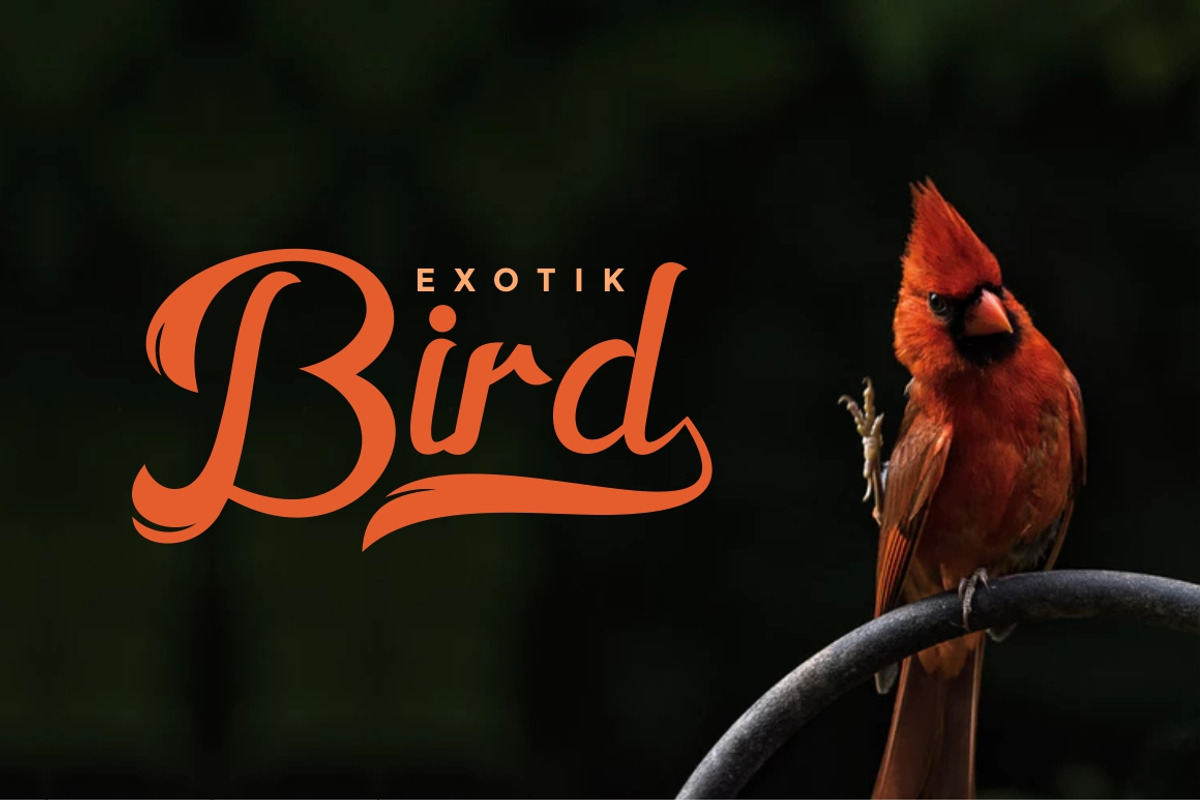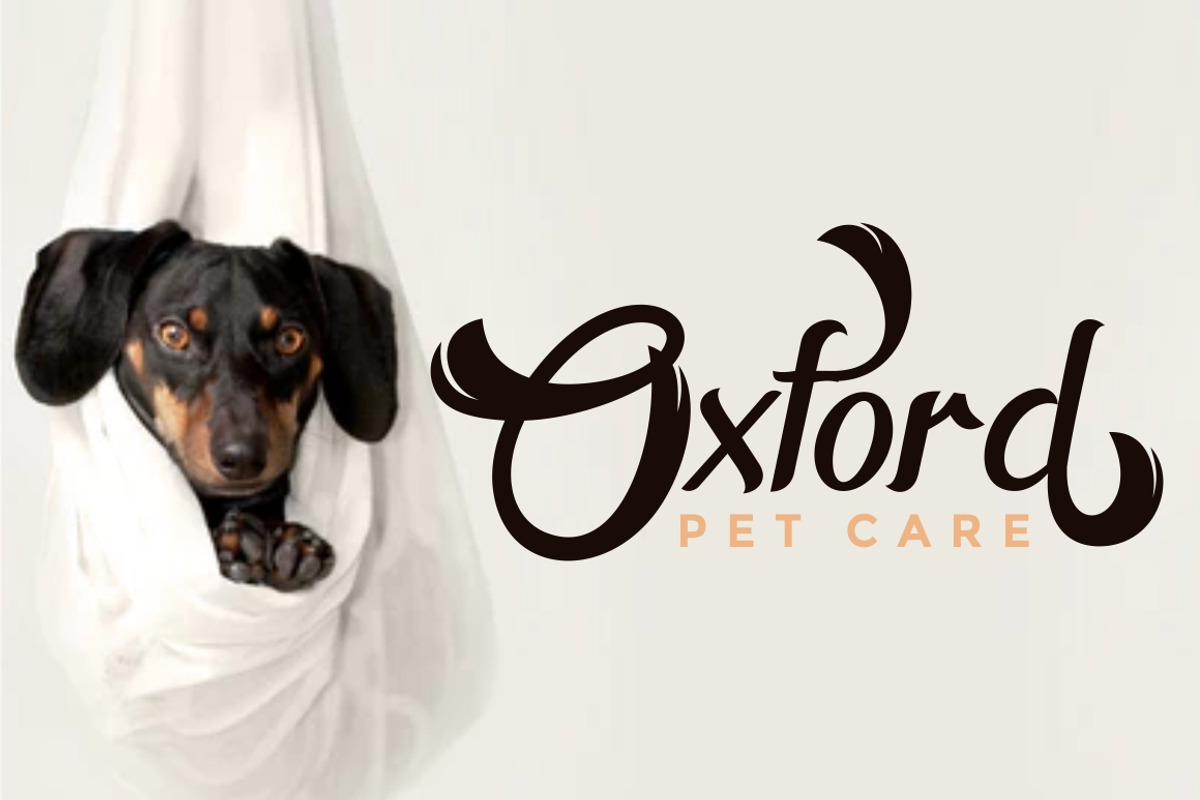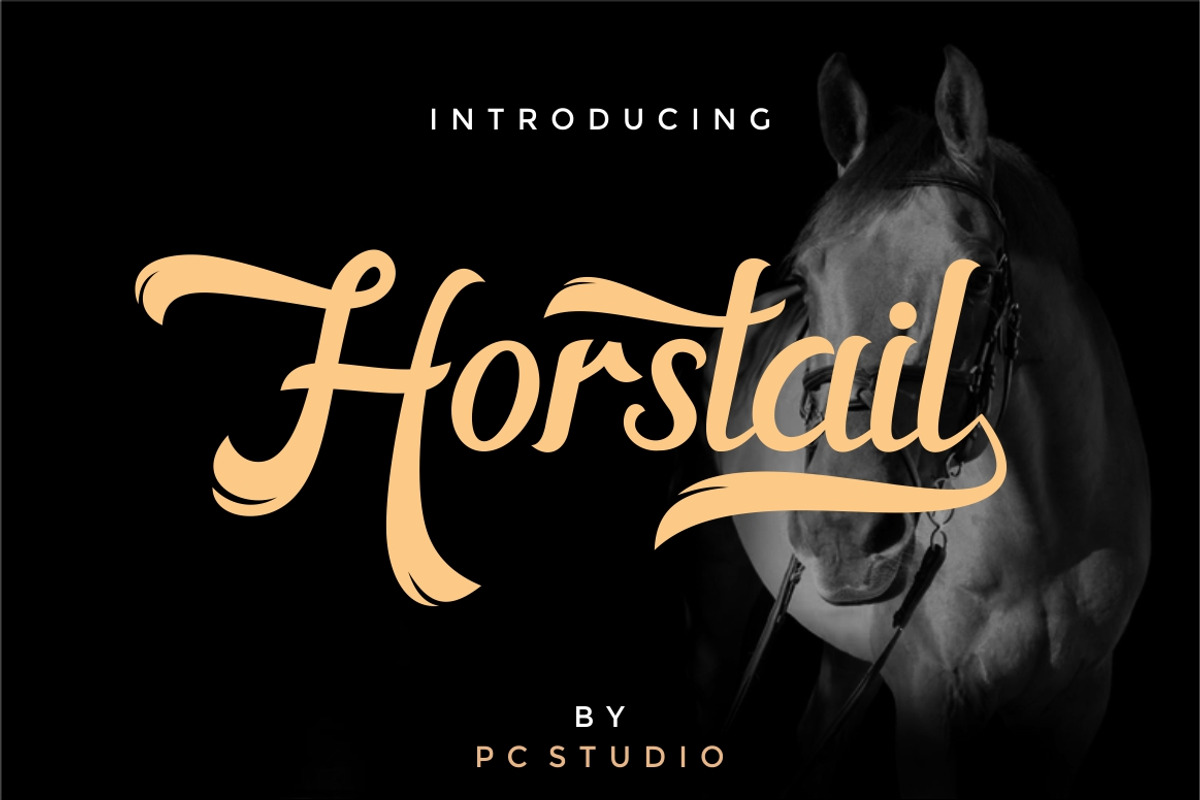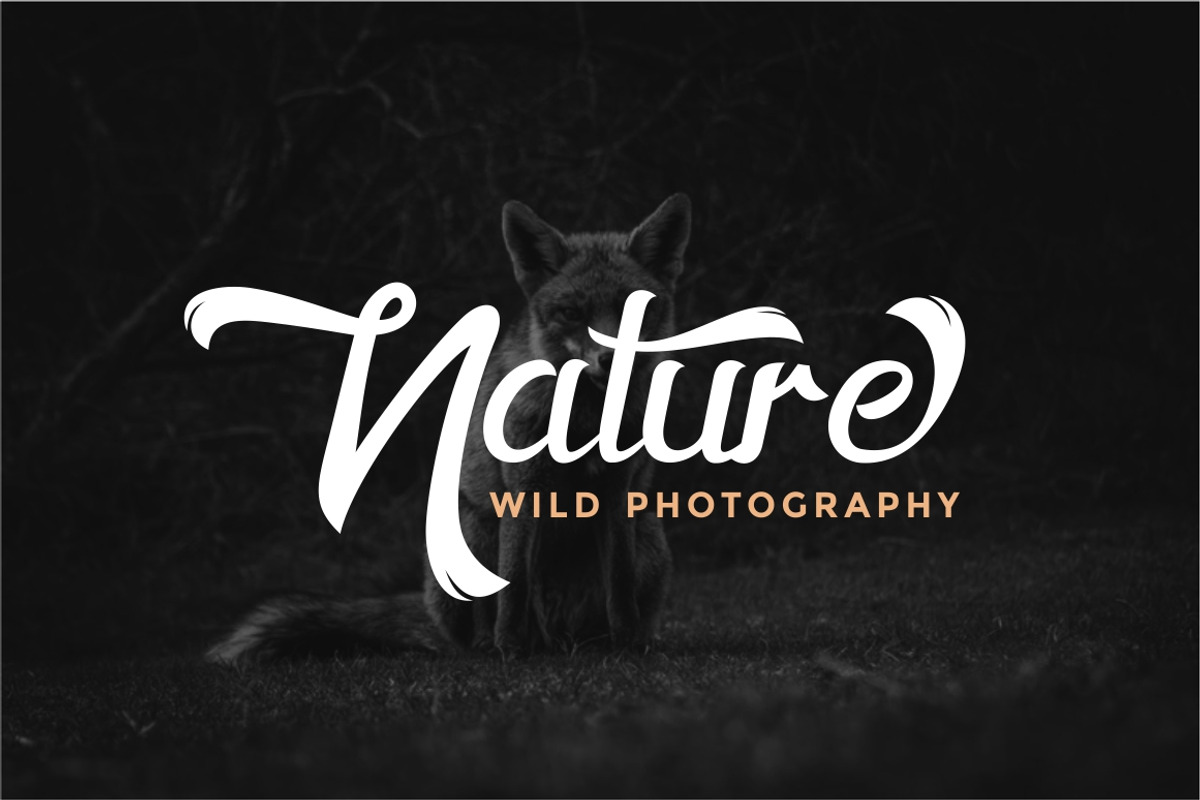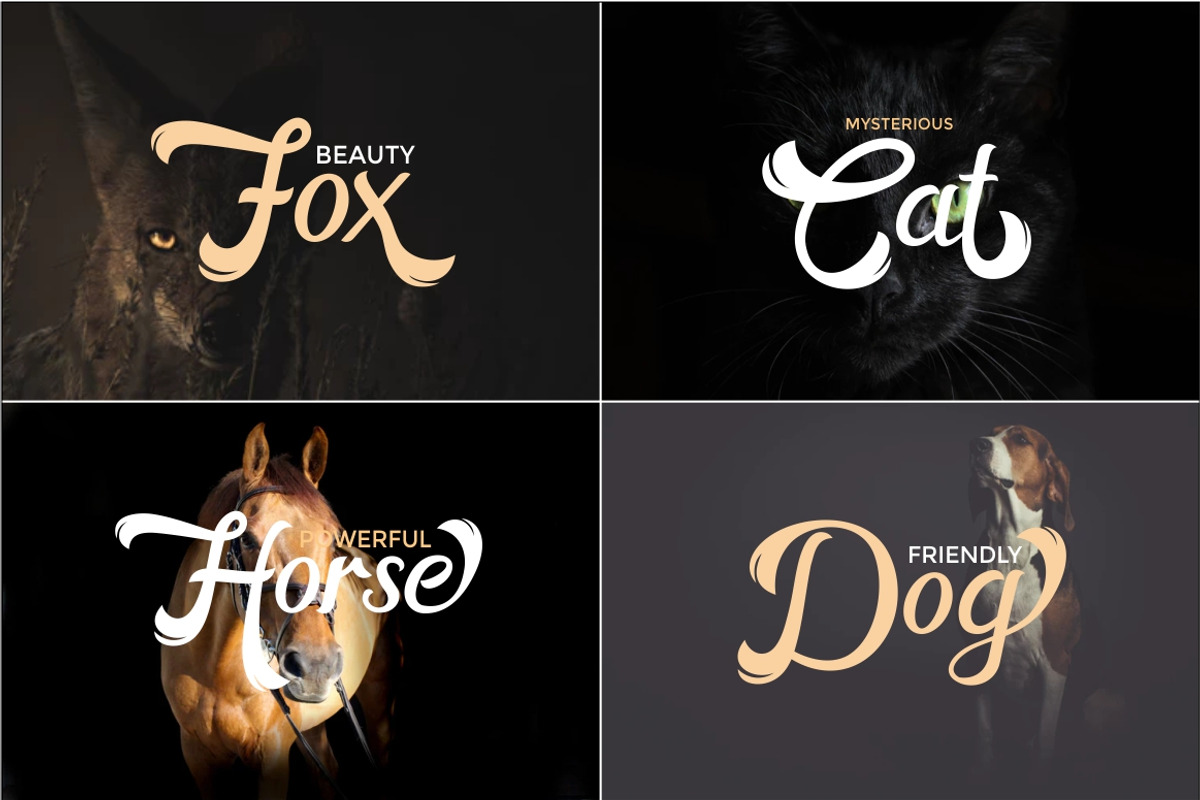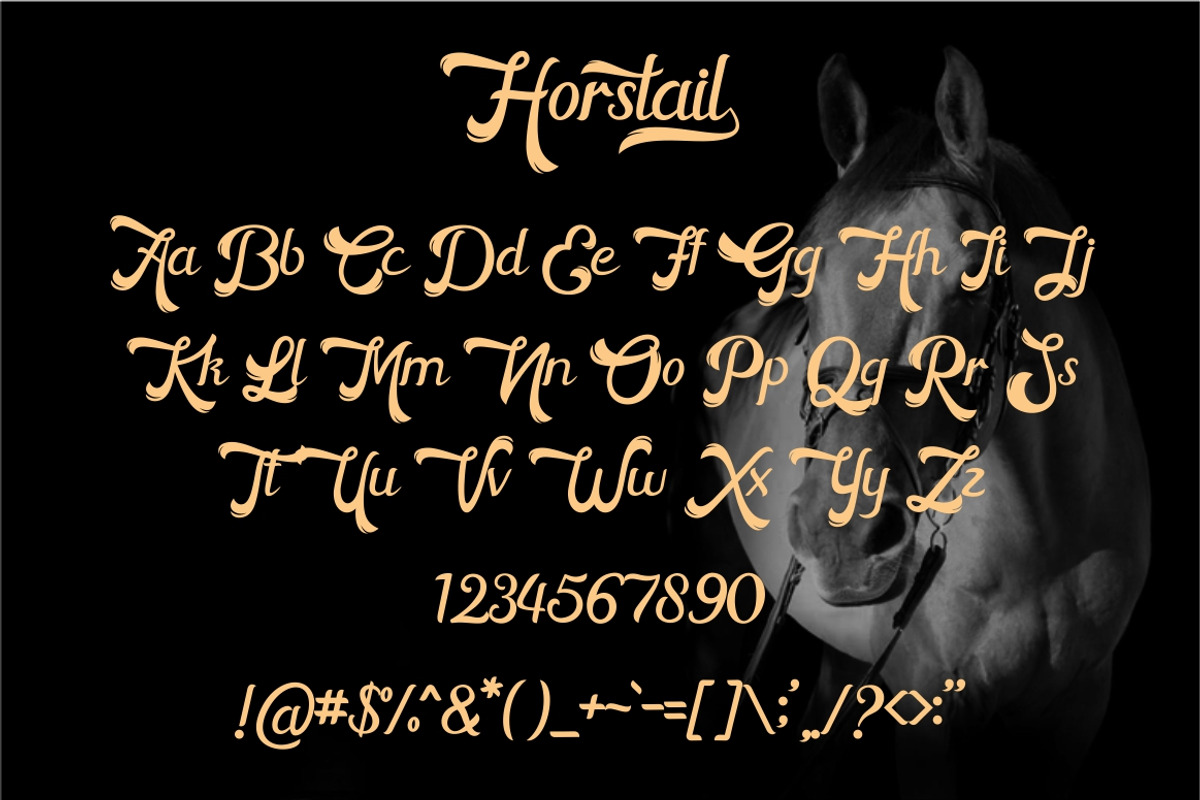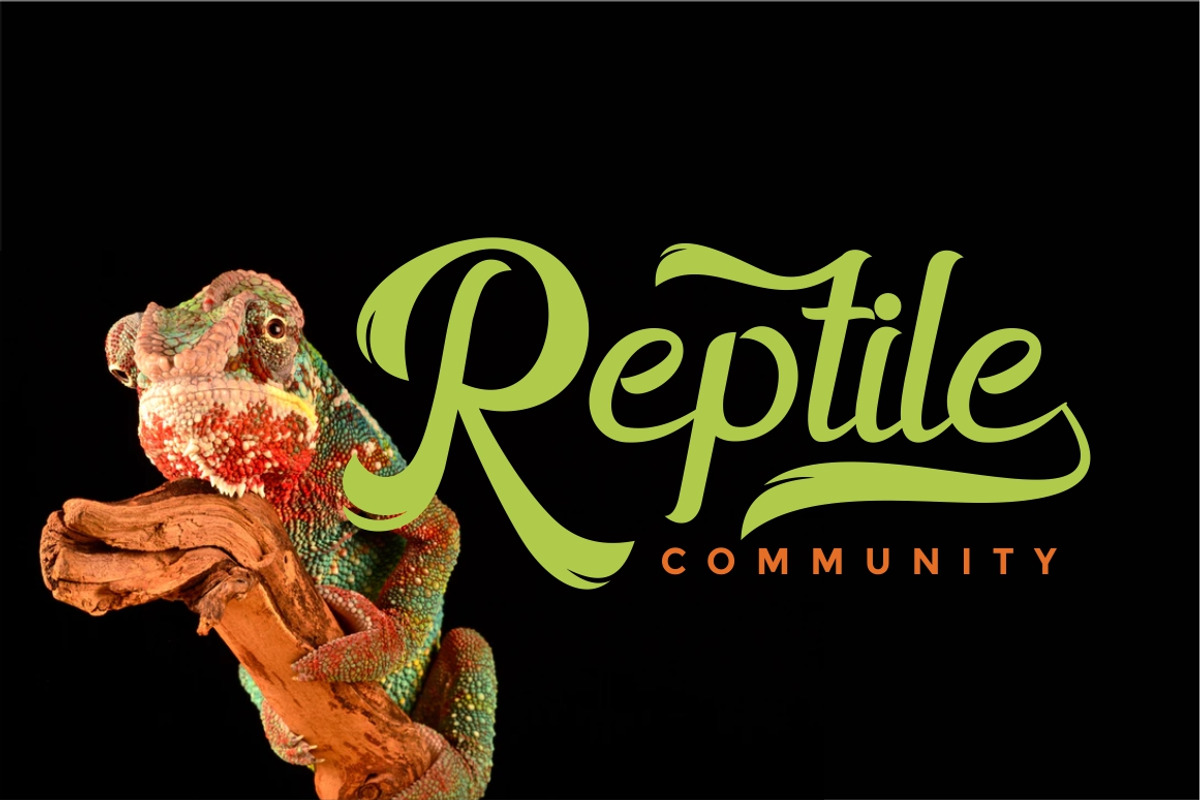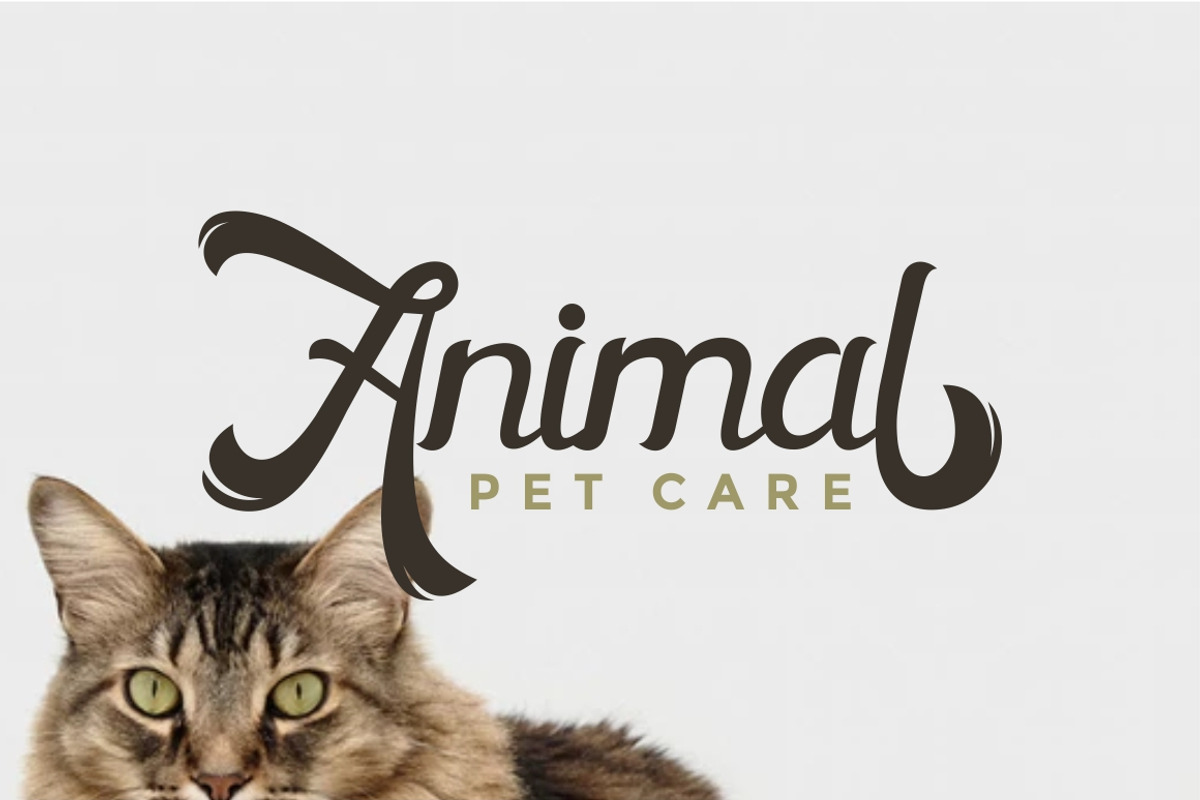
Horstail Typeface
Horstail is a script typeface, with a swash tail like an animal's tail, it is perfect for you animal lovers. suitable for logos, Tittle, tagline, Tshirt, handwritten quotes, product packaging, poster, merchandise, social media, labels, branding, greeting cards, etc.
Why Horstail Typeface is worth a look
Horstail Typeface by PutraCetol Studio fits naturally into Branding, posters, packaging, typography.